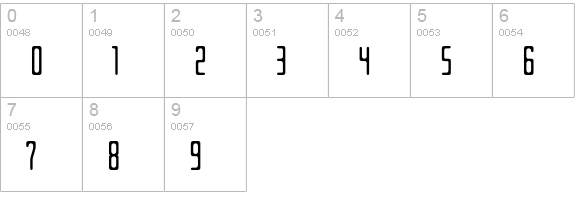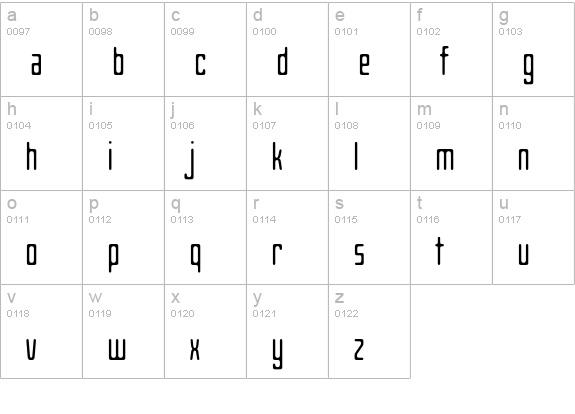
Gangly-Regular Font Details
Gangly-Regular is the standard, neutral variant in the Gangly typeface family \xE2\x80\x94 well suited to general body text, paragraphs, and standard typographic work.
Gangly-Regular font is a unique and modern typeface that exudes a sense of sophistication and elegance. Its tall and slender letterforms make it perfect for headlines, titles, and branding projects. With its clean and minimalist design, Gangly-Regular font adds a touch of refinement to any design. What sets Gangly-Regular font apart is its versatility. Whether you're designing a logo for a high-end fashion brand, creating a sleek website, or designing a stylish magazine layout, this font will effortlessly elevate your design to the next level. But what makes Gangly-Regular font even more appealing is that it is free. Yes, you read that right! This amazing font can be downloaded for free at FontsMarket.com. This means that you can use it in both personal and commercial projects without having to worry about breaking the bank. Downloading Gangly-Regular font is quick and easy. Simply head over to FontsMarket.com, search for Gangly-Regular font, and hit the download button. Within seconds, you'll have this fantastic font ready to use in your projects. So why wait? Add a touch of style and sophistication to your designs with Gangly-Regular font. Download it for free at FontsMarket.com and let your creativity soar.